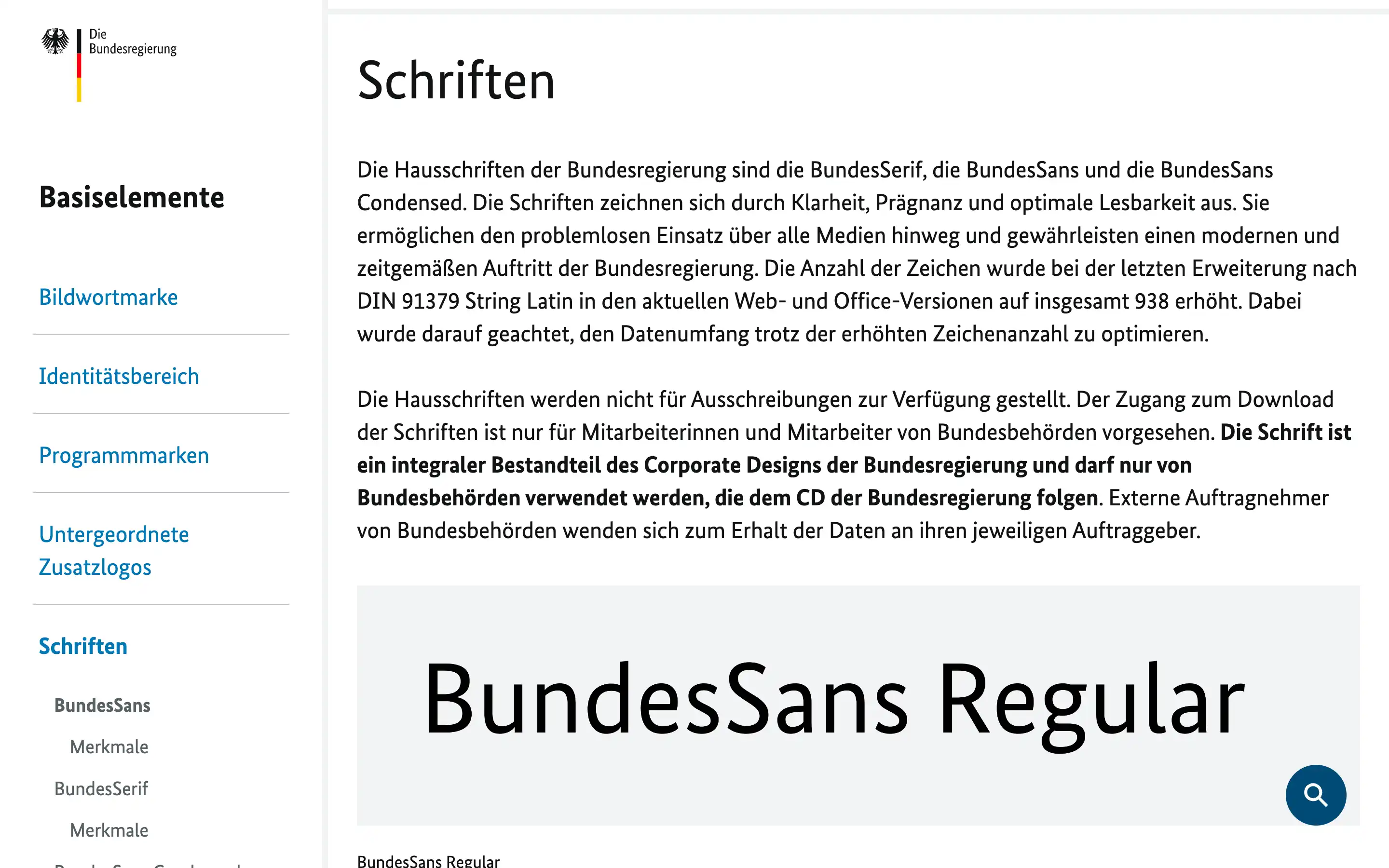
The federal government’s corporate fonts are BundesSerif, BundesSans and BundesSans Condensed. The fonts are characterized by clarity, conciseness and optimal readability. They enable problem-free use across all media and ensure a modern and contemporary appearance for the federal government. The company fonts are not made available for tenders. Access to downloading the publications is only intended for employees of federal authorities. External contractors from federal authorities contact their respective client to receive the data.
Bundes Font
The federal government’s corporate fonts, BundesSerif, BundesSans, and BundesSans Condensed, ensure clarity and readability across all media.